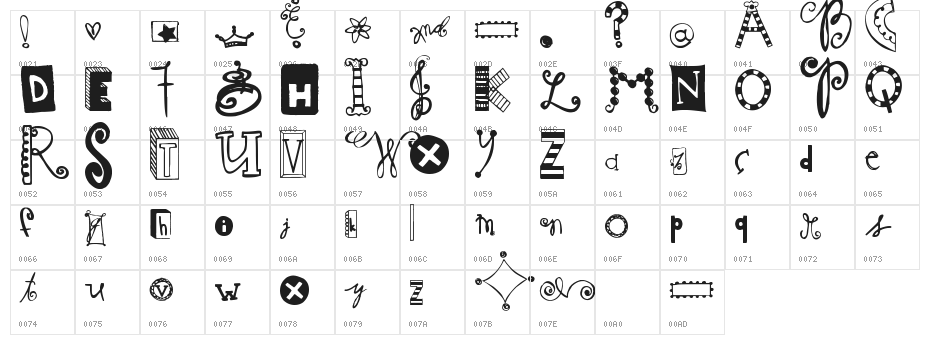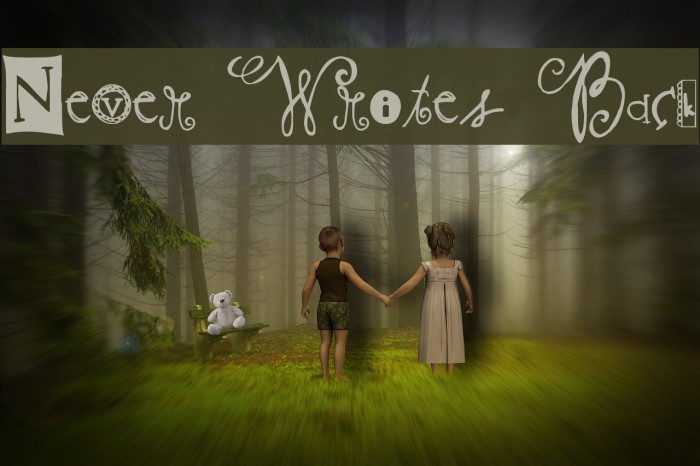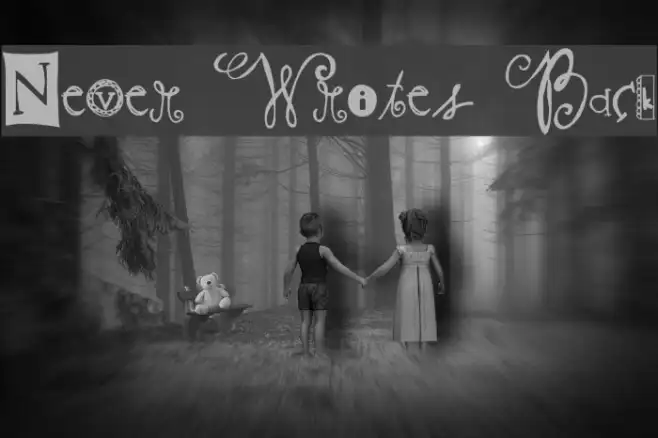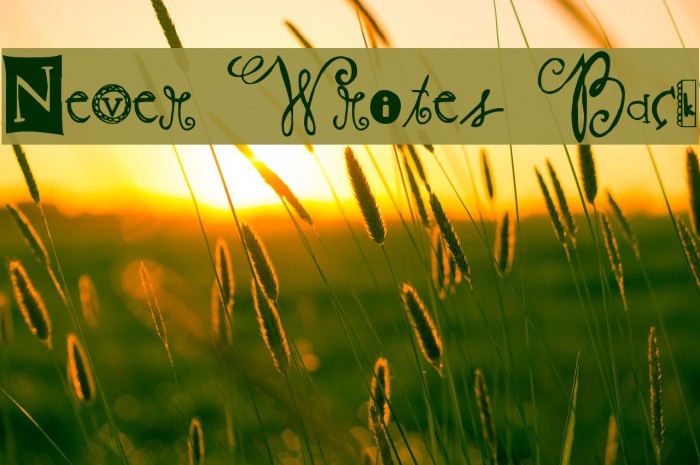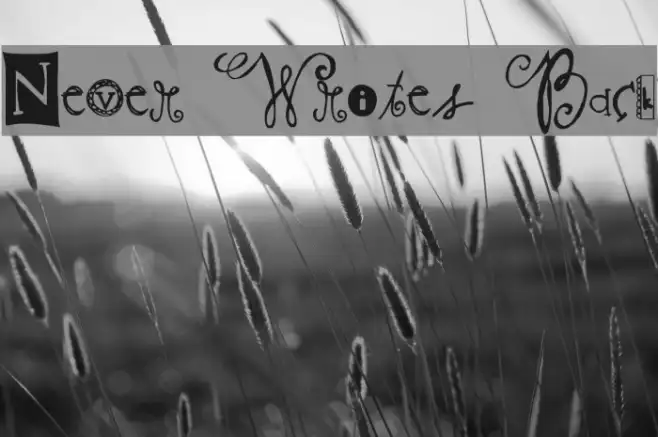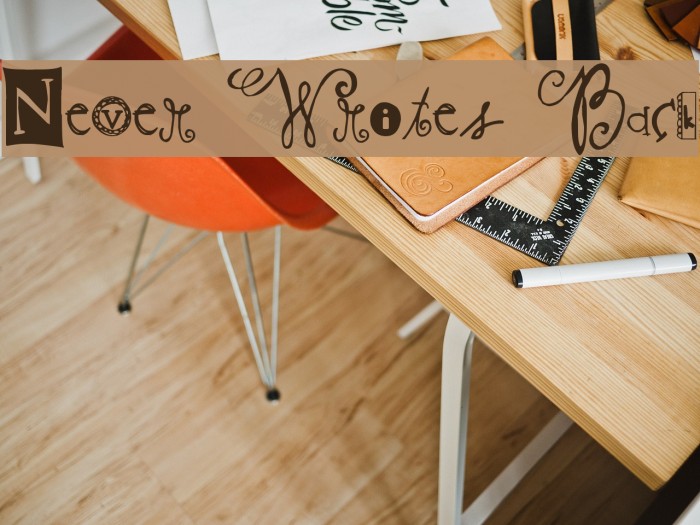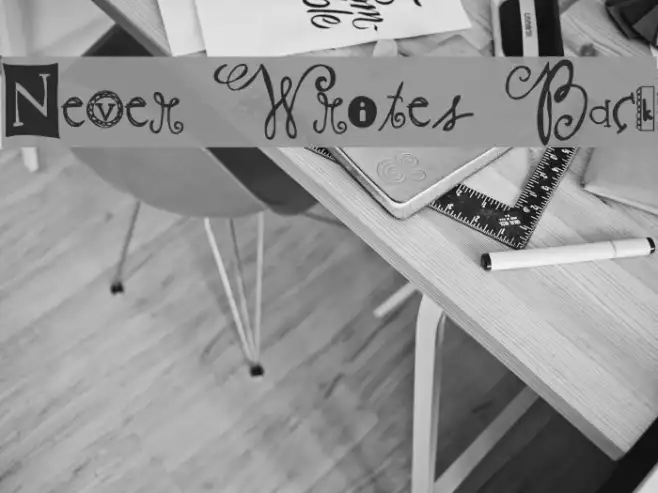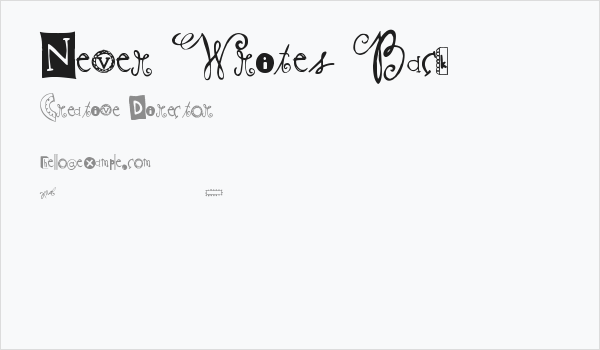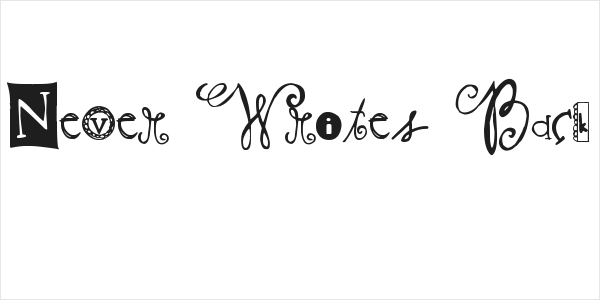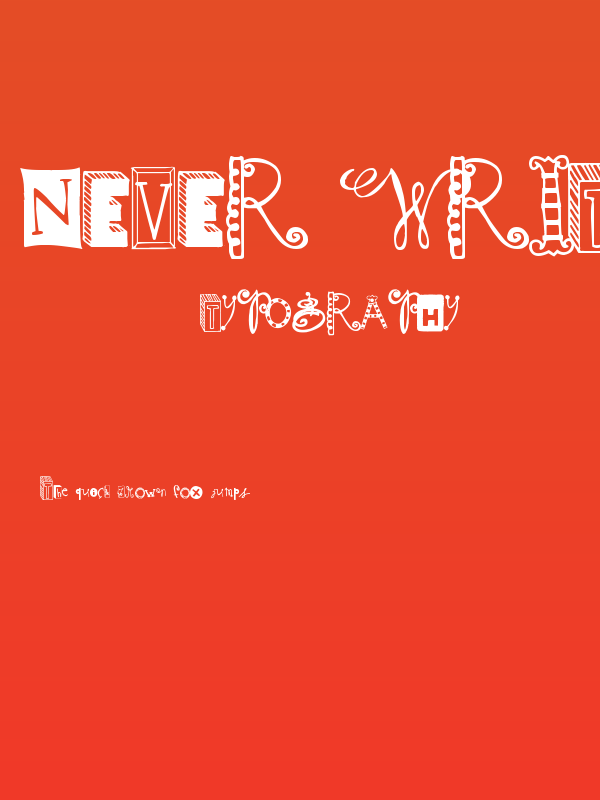
Never Writes Back Font
Never Writes Back Description
This font is a playful and eclectic mix of various styles, each letter showcasing a unique design. The uppercase letters feature a range of decorative elements, from polka dots and stripes to swirls and geometric patterns. The lowercase letters continue this theme with quirky and whimsical shapes. The numbers and special characters are equally varied, adding to the font's charm and versatility. This font is perfect for projects that require a fun and creative touch, such as children's books, party invitations, or artistic posters.
| Proposed Projects | Ideal for children's books, party invitations, artistic posters, and creative branding. |